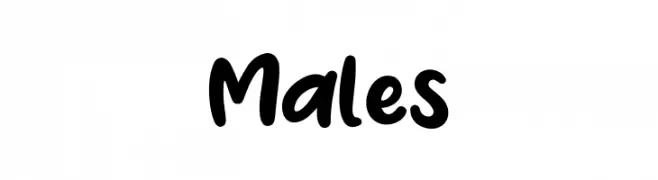
• Dalgona Candy
A playful, bold sans-serif font with characters enclosed in circles.
• Sheenaz
A lively and elegant script font with flowing, cursive letterforms.
• Maybe Next
A playful, hand-drawn style font with rounded, consistent strokes.
• Gratise
A playful, bold handwritten font with a casual and friendly style.
• Zidan
A bold, expressive brush-style font with dynamic strokes and a hand-drawn appearance.
• Fegan
A hand-drawn, sketch-style font with bold, textured characters.
• Angello
A graceful and fluid script font with elegant, cursive letterforms.
• Jicama Days
A playful, bold font with rounded, hand-drawn characters.
• Love Coffee
A bold, playful font with coffee-themed elements, perfect for creative and fun designs.
• Males
A bold, playful handwritten font with rounded, consistent strokes.